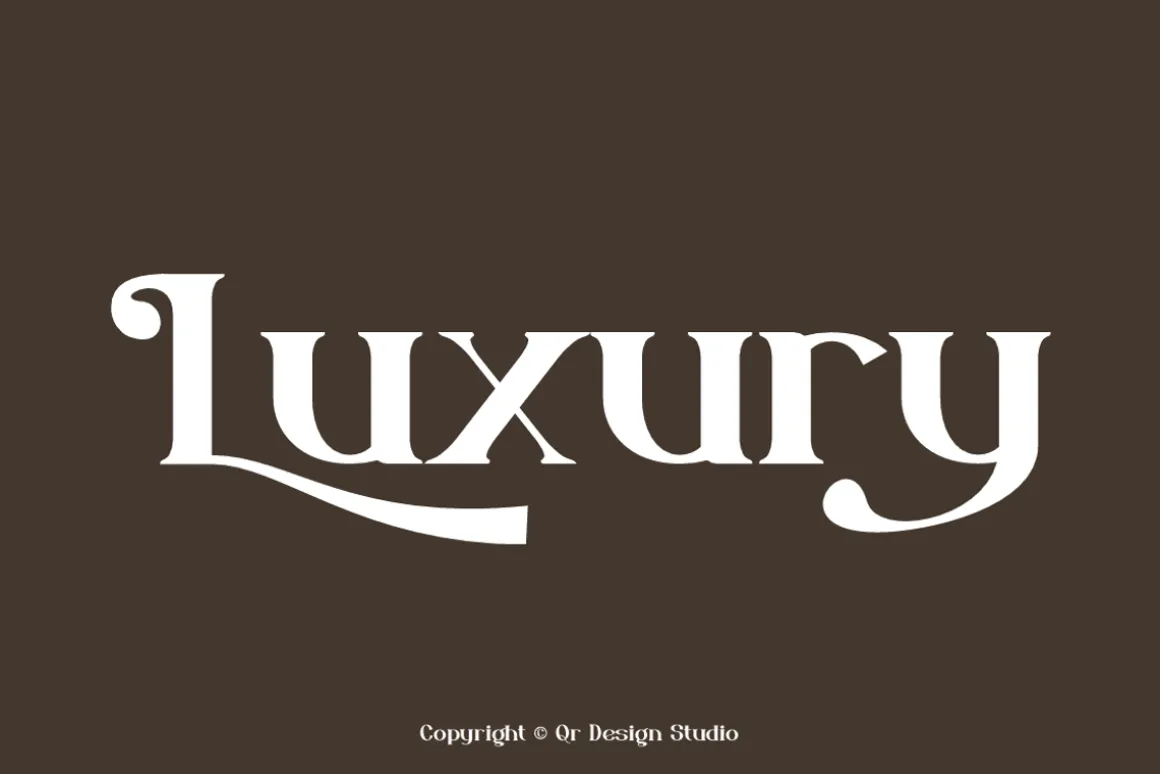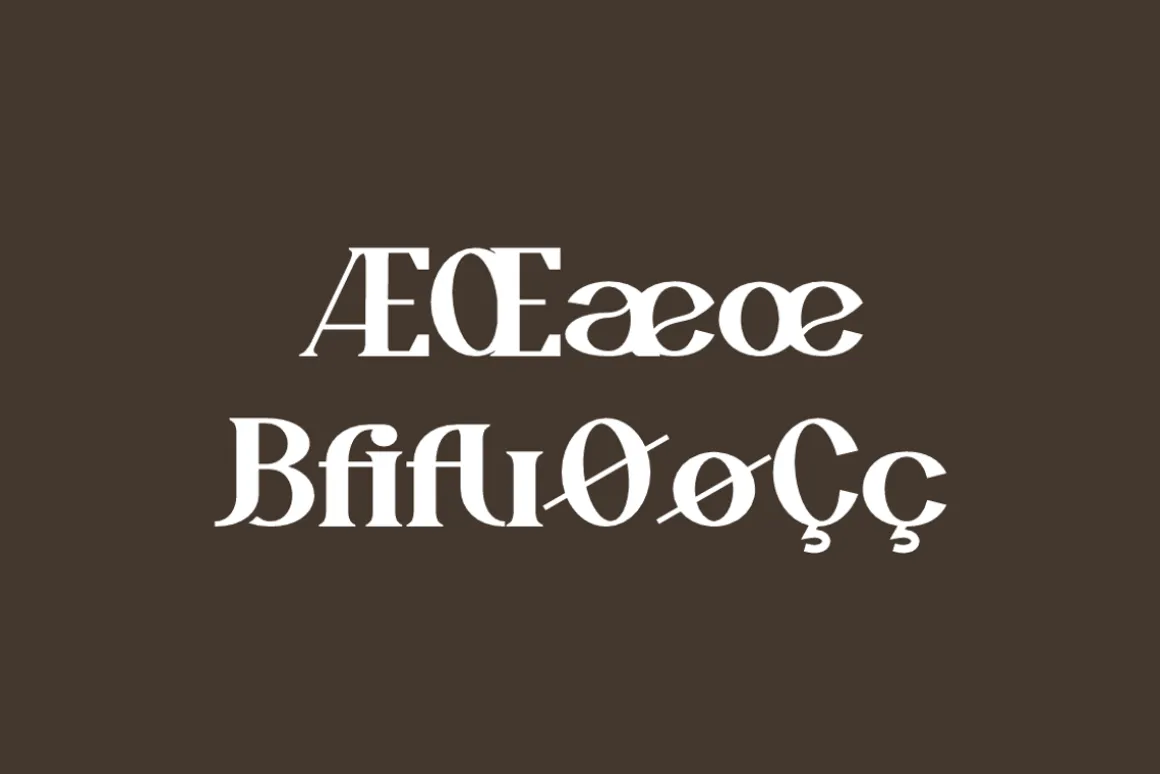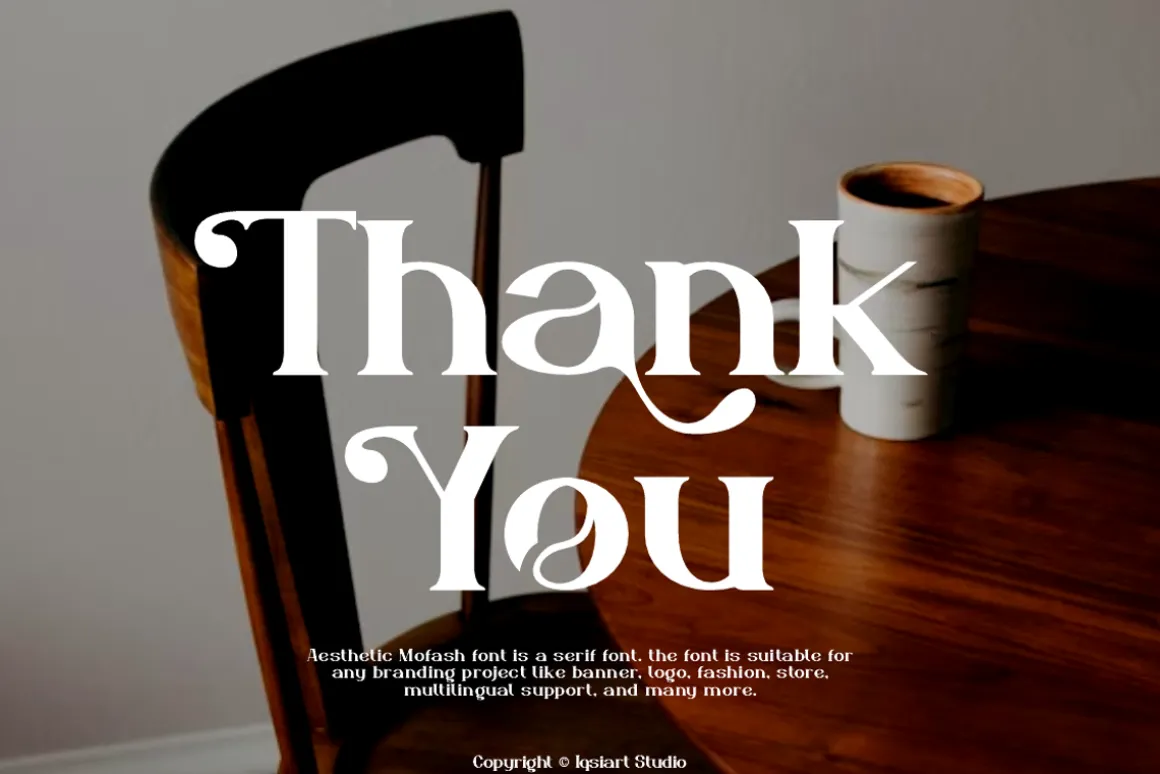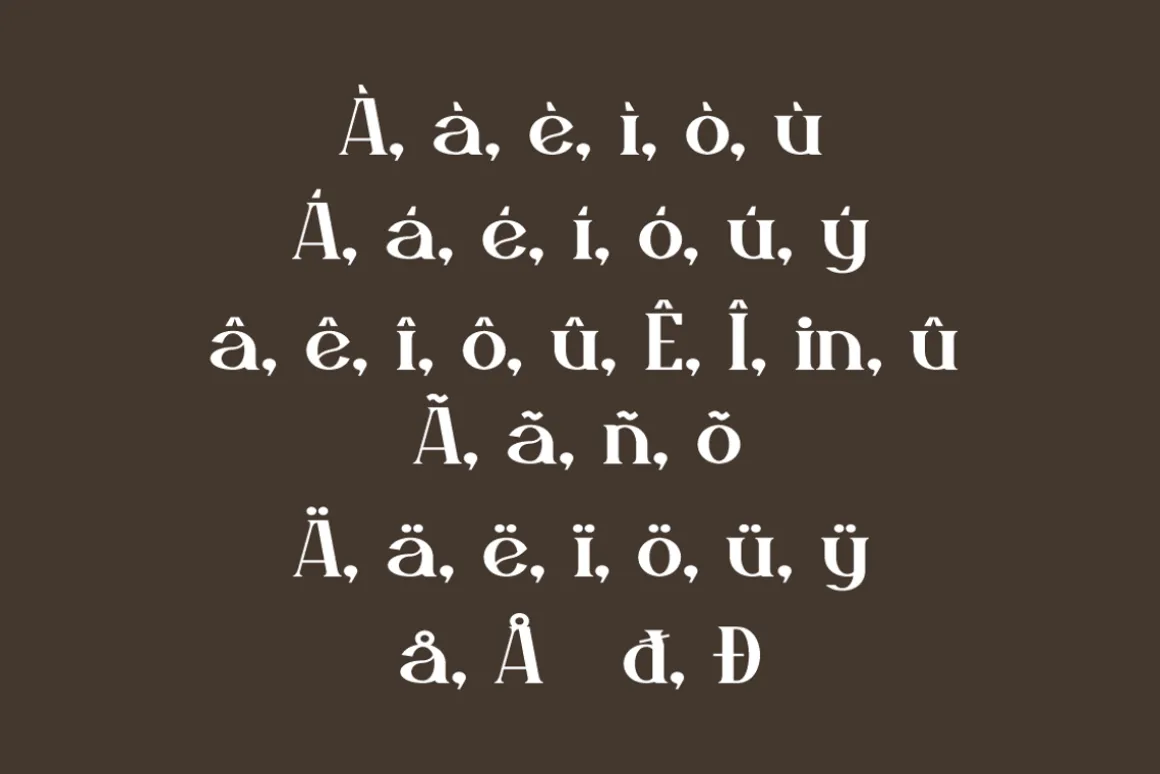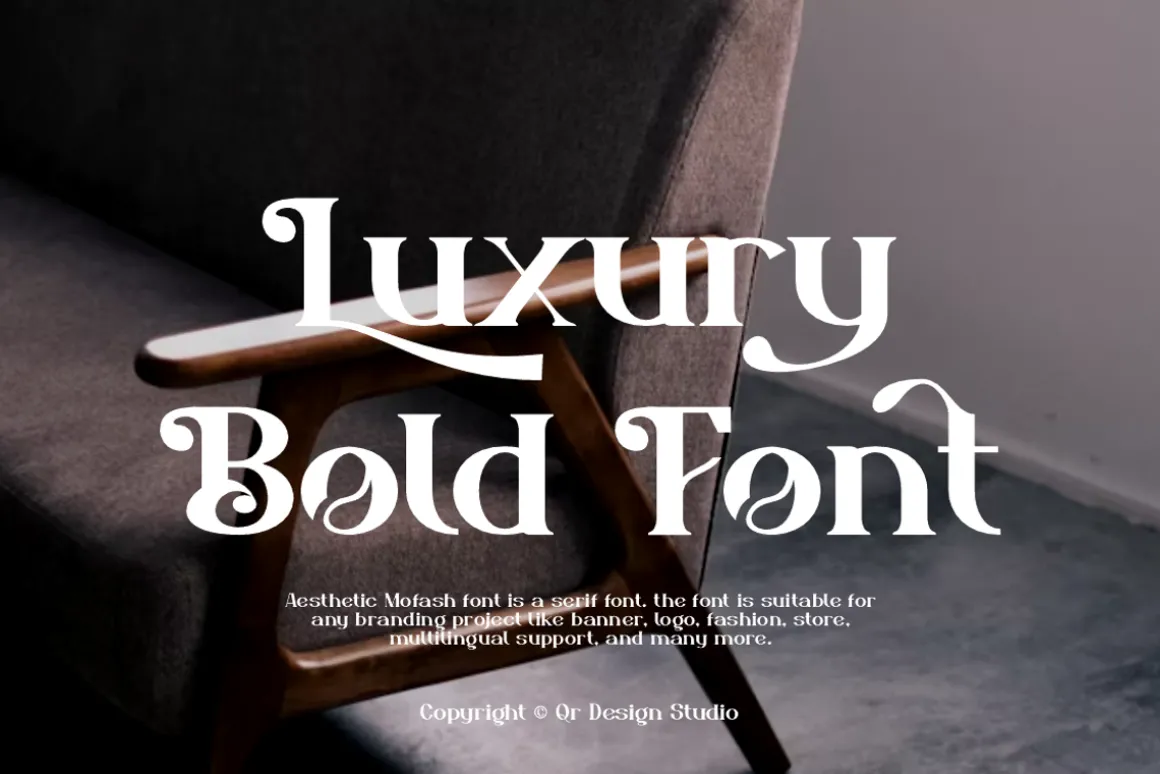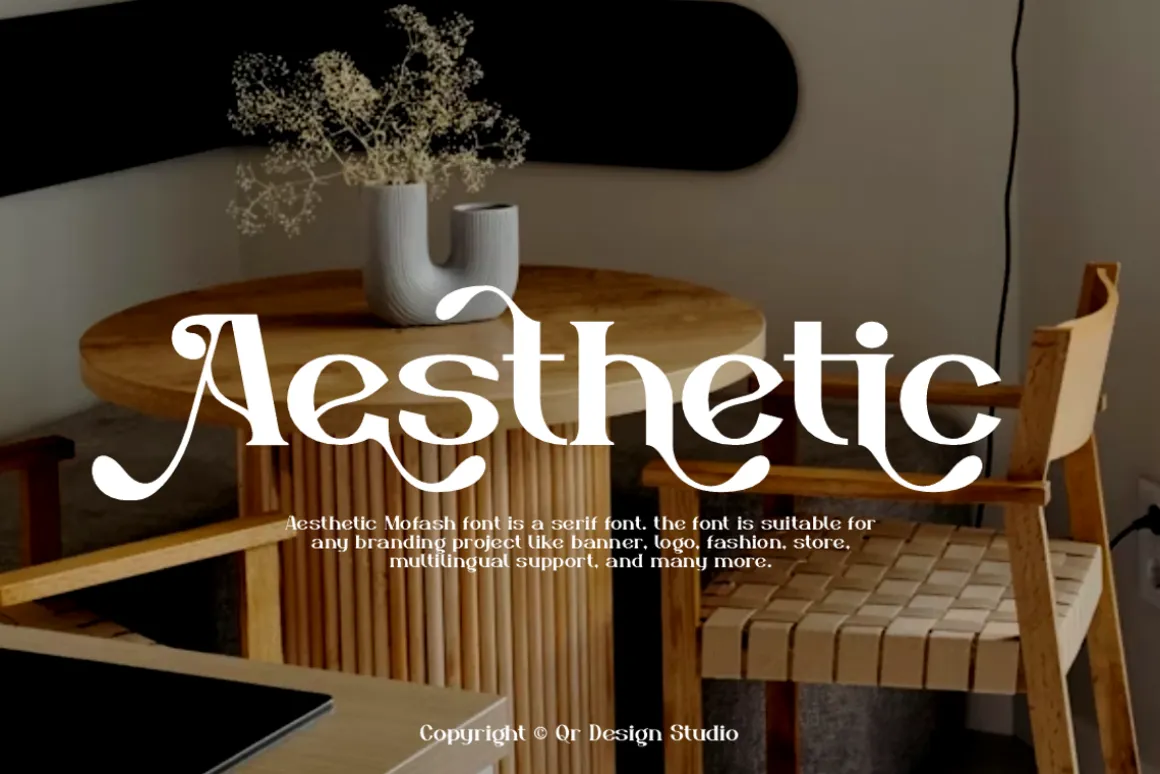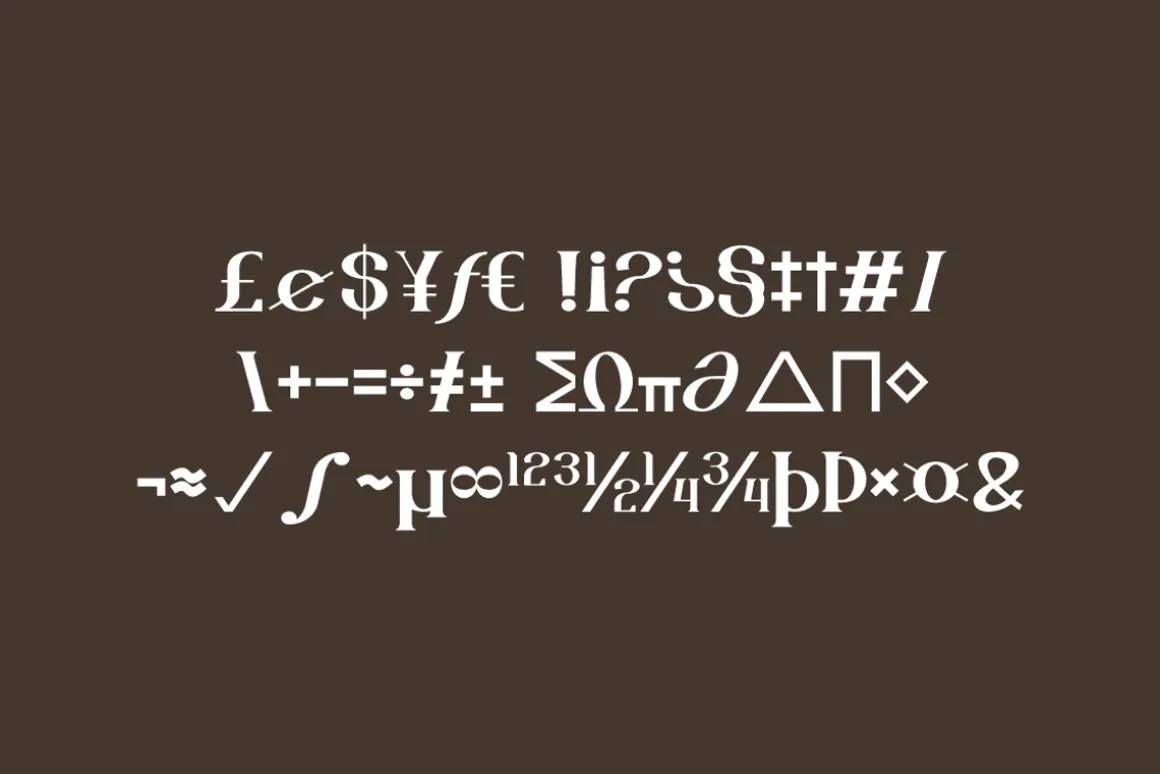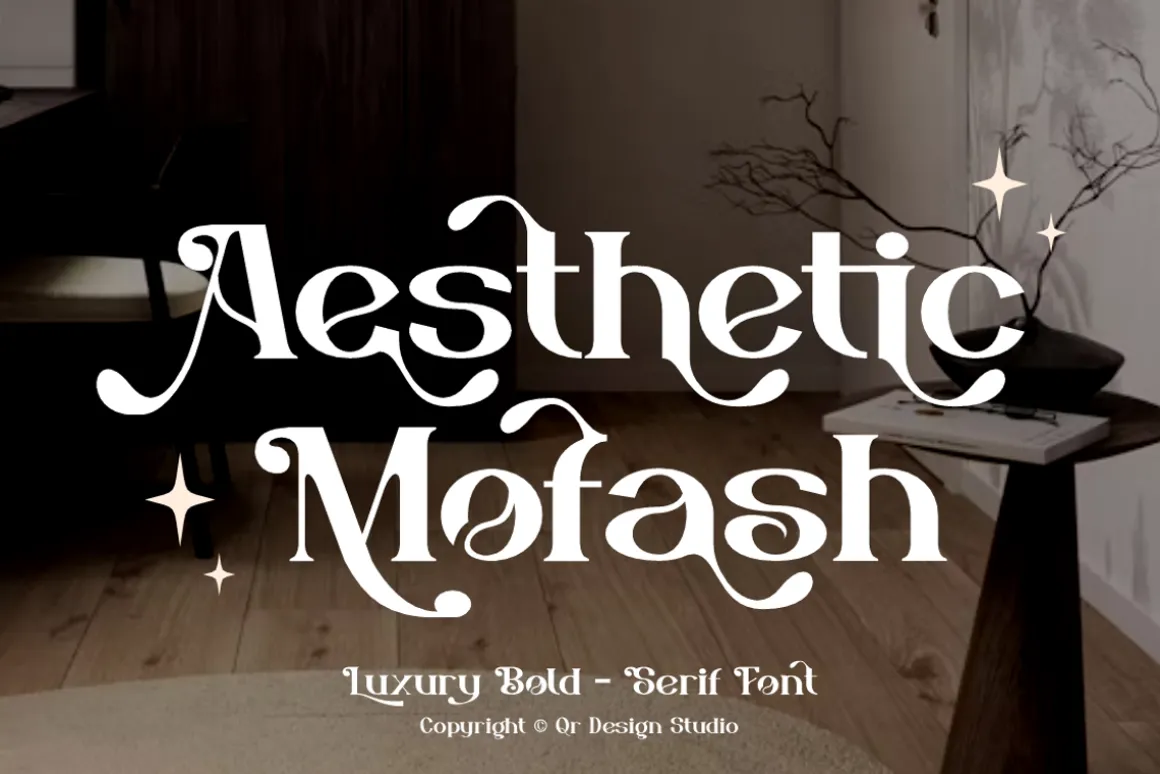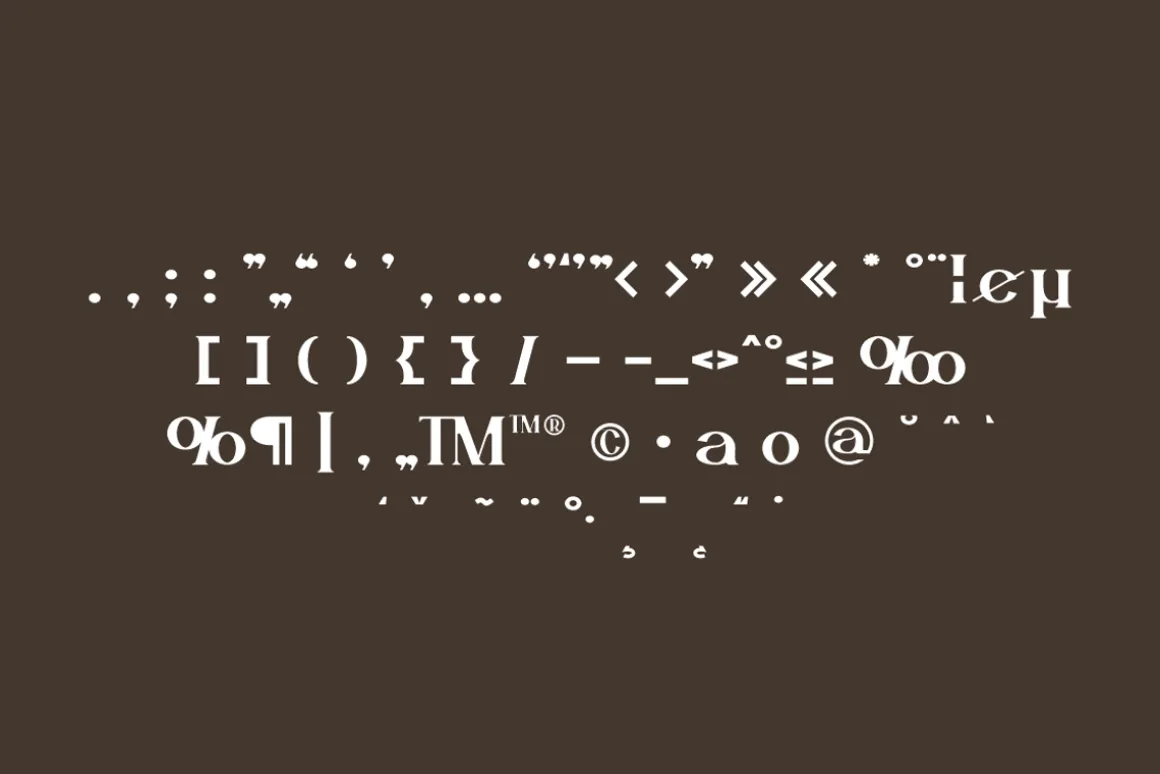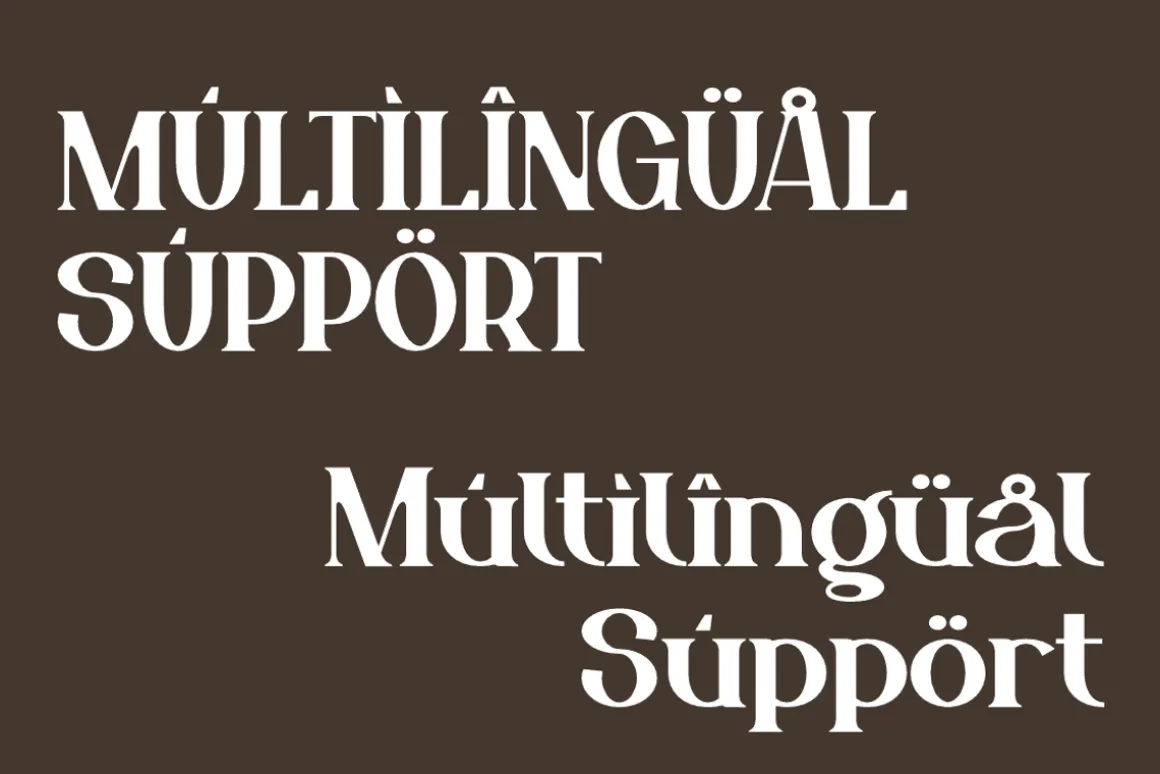
Aesthetic Mofash Font is a serif and authentic display font.The font is suitable for any branding project like poster, logo, stylish, and many more.Outstanding in a wide range of contexts.